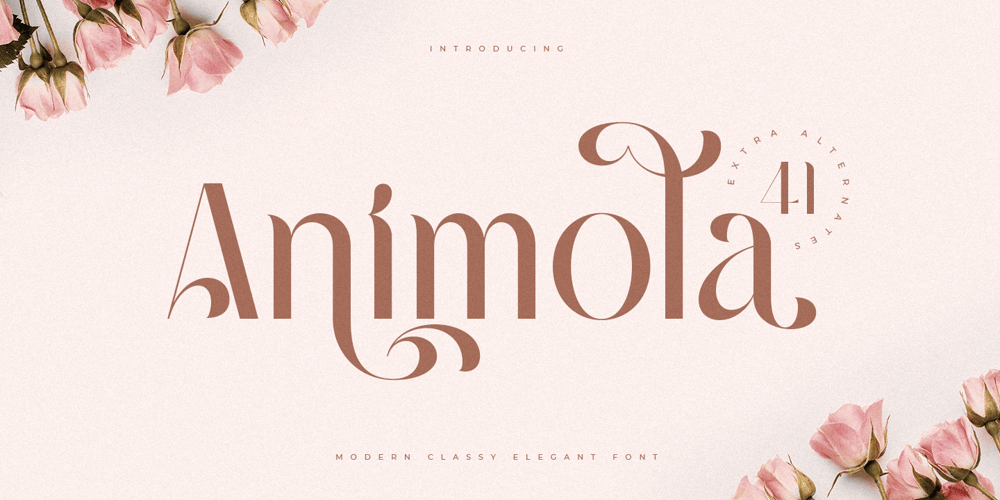
Animola
Animola font
Animola Font Family was designed by Zamroni Hamzah and published by Sensatype Studio. Animola contains 1 styles and family package options. A Luxury Love Font that we created special for elegant branding needs, with unique shape will be ready to add value of your brand. It so nice to leverage designer or product owner that need solutions to make their design look more stylish and modern. And specially for Andara font, We prepared any characters to help you create unlimited variations for your creative needs.Andara Luxury Classy Love Font ready with: Unique Luxury Love Characters wit swash as alternates inside Preview as a inspirations that you can do with Andara font Ready with Lowercase and Uppercase characters Wish you enjoy our font. 🙂